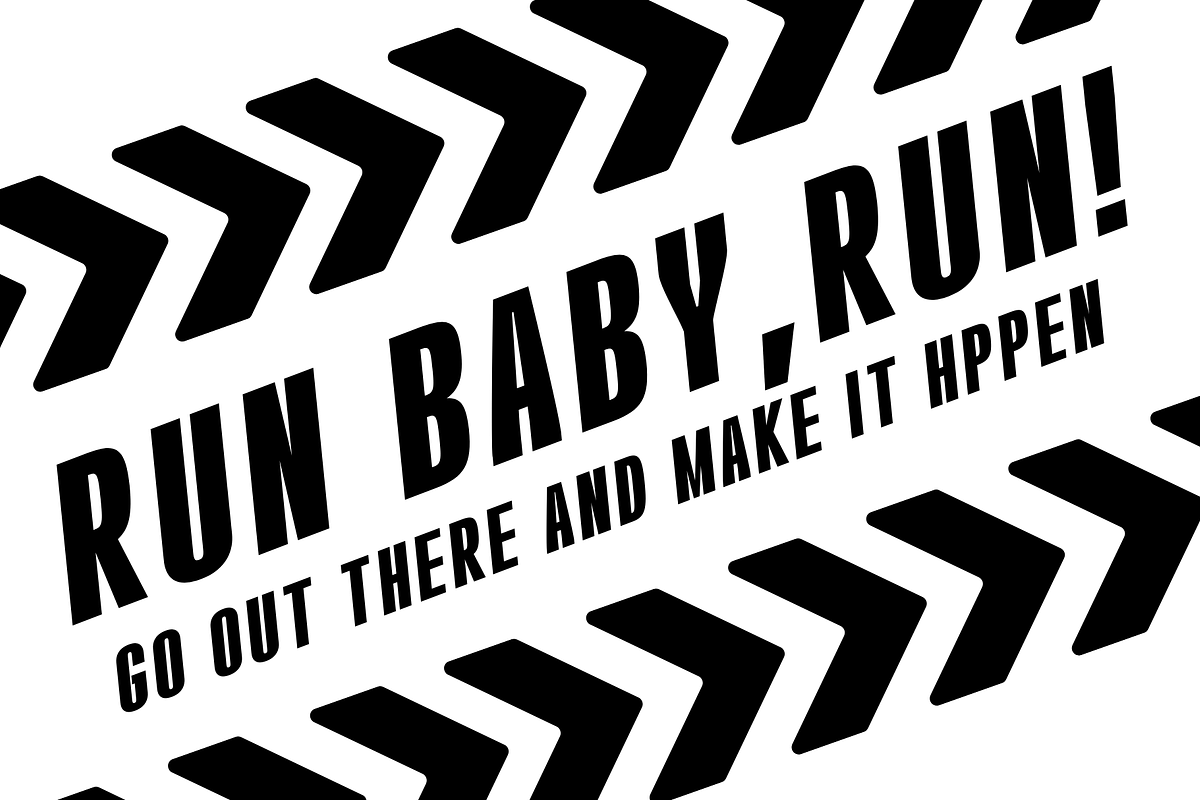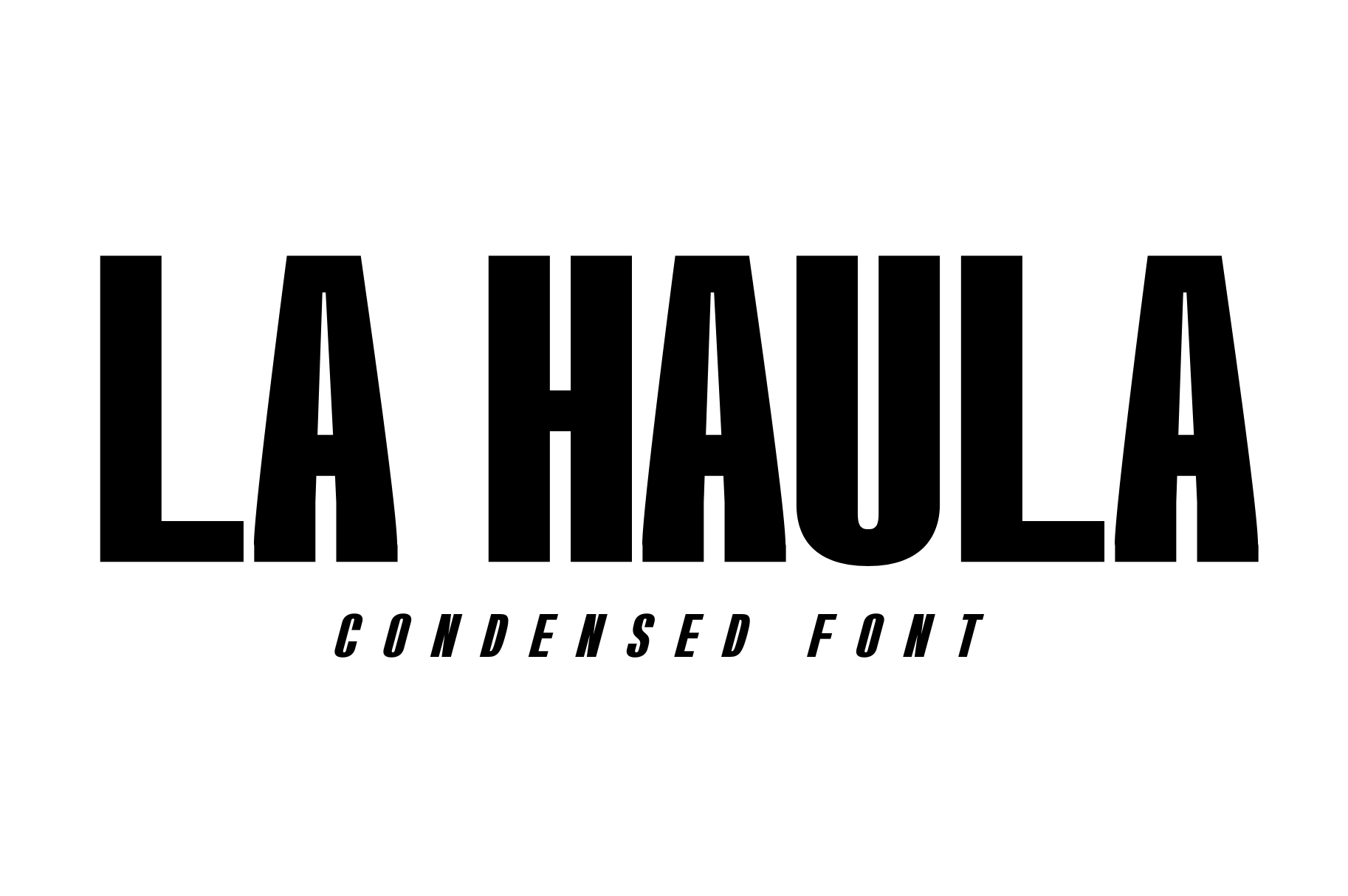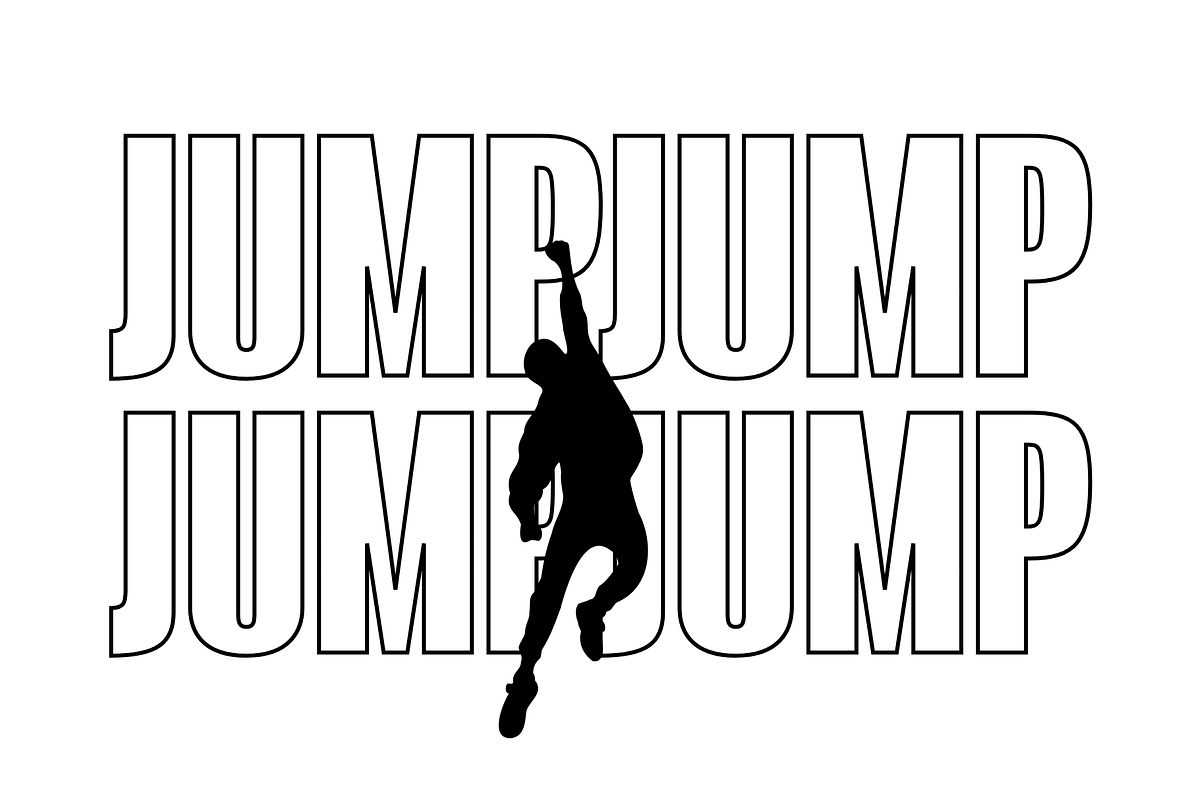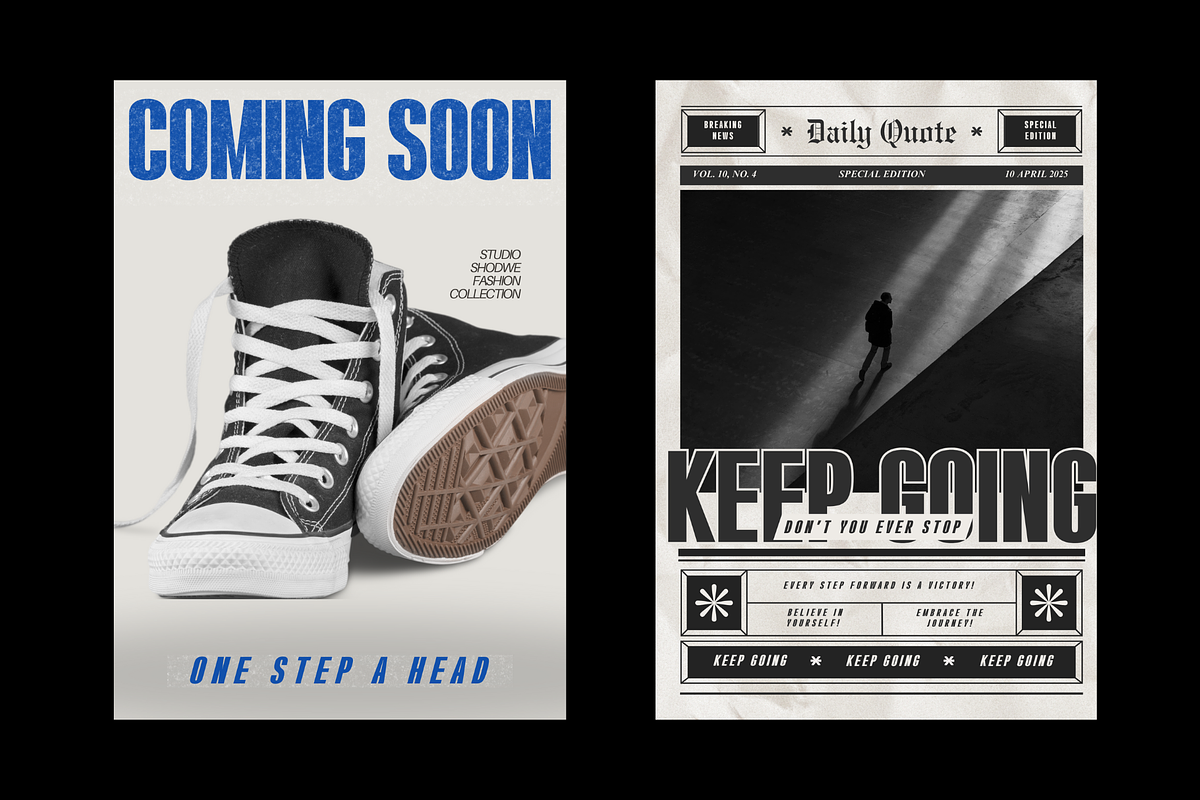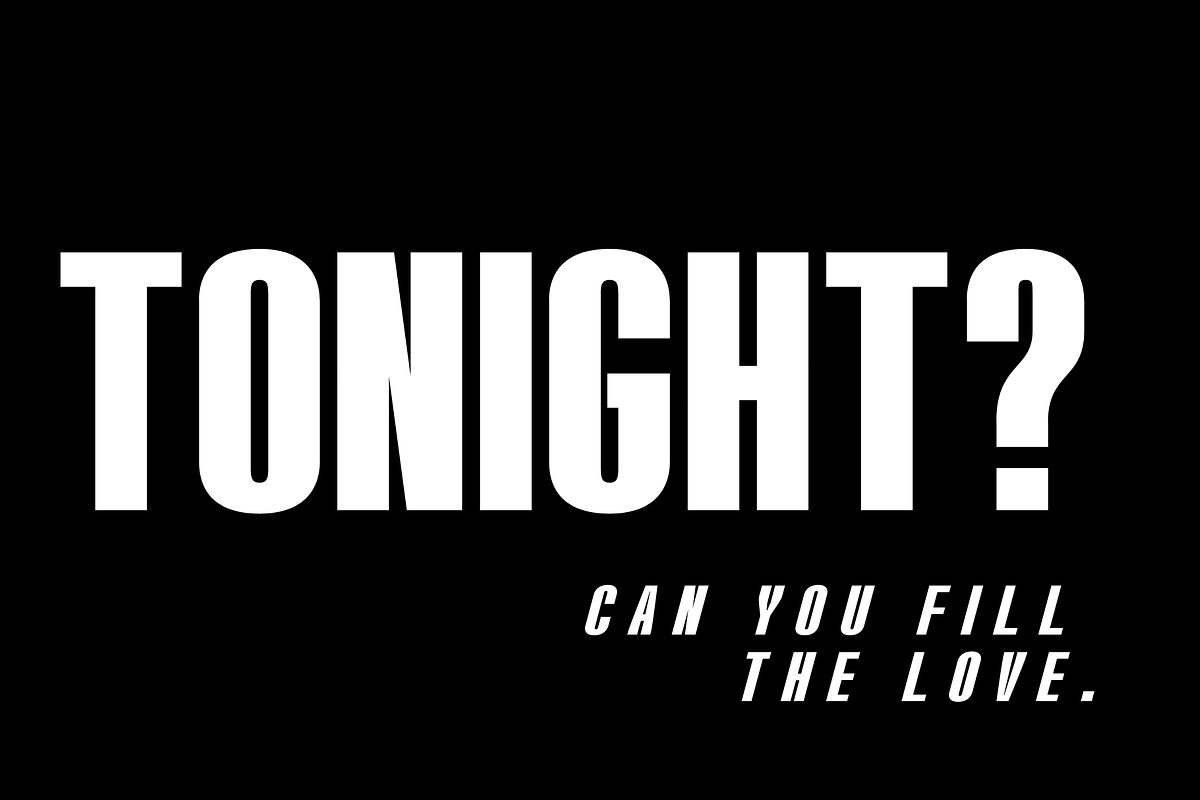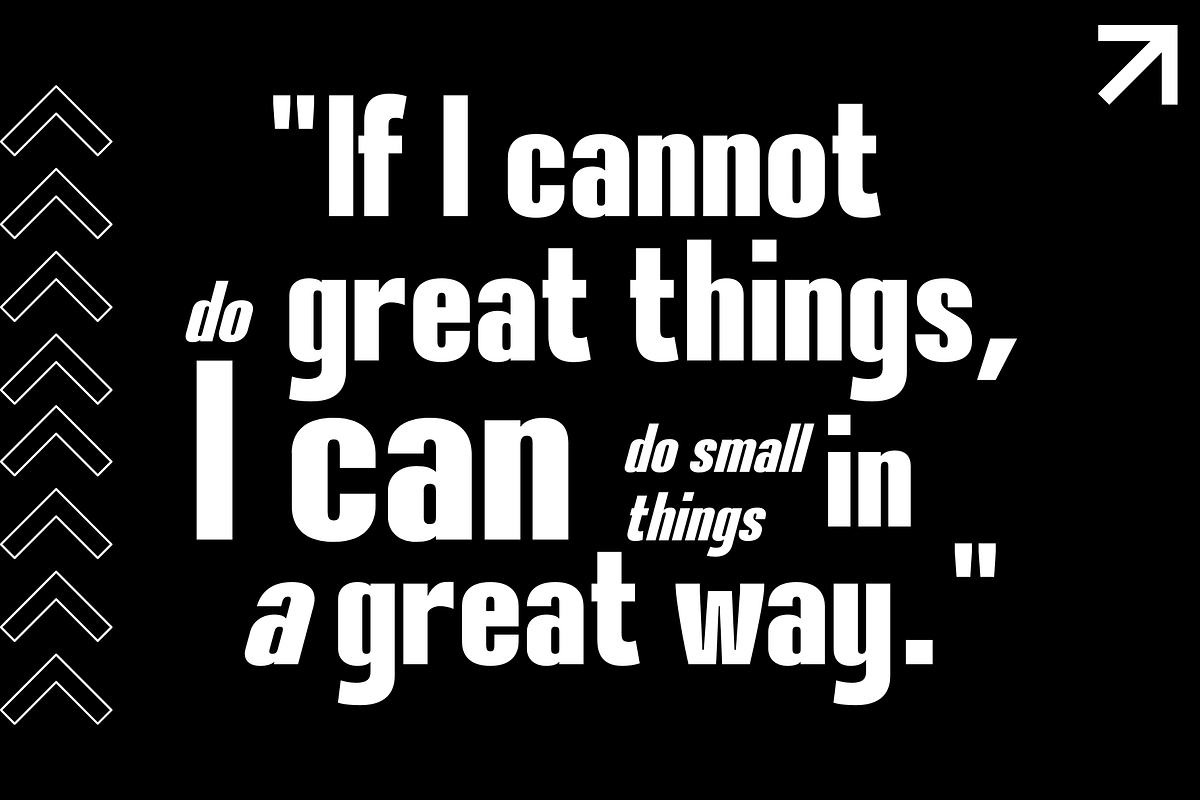
La Haula New - Condensed Font
Unleash the power of boldness and sophistication with La Haula, a striking display sans serif font designed to captivate and command attention. With its sleek lines and condensed form, La Haula is perfect for making a bold statement in headlines, logos, posters, and more. Elevate your designs with the confident presence of La Haula and leave a lasting impression on your audience.
With La Haula, boldness meets sophistication to create designs that leave a lasting impression. Embrace the sleek aesthetic and commanding presence of this display sans serif font to make your mark with confidence.